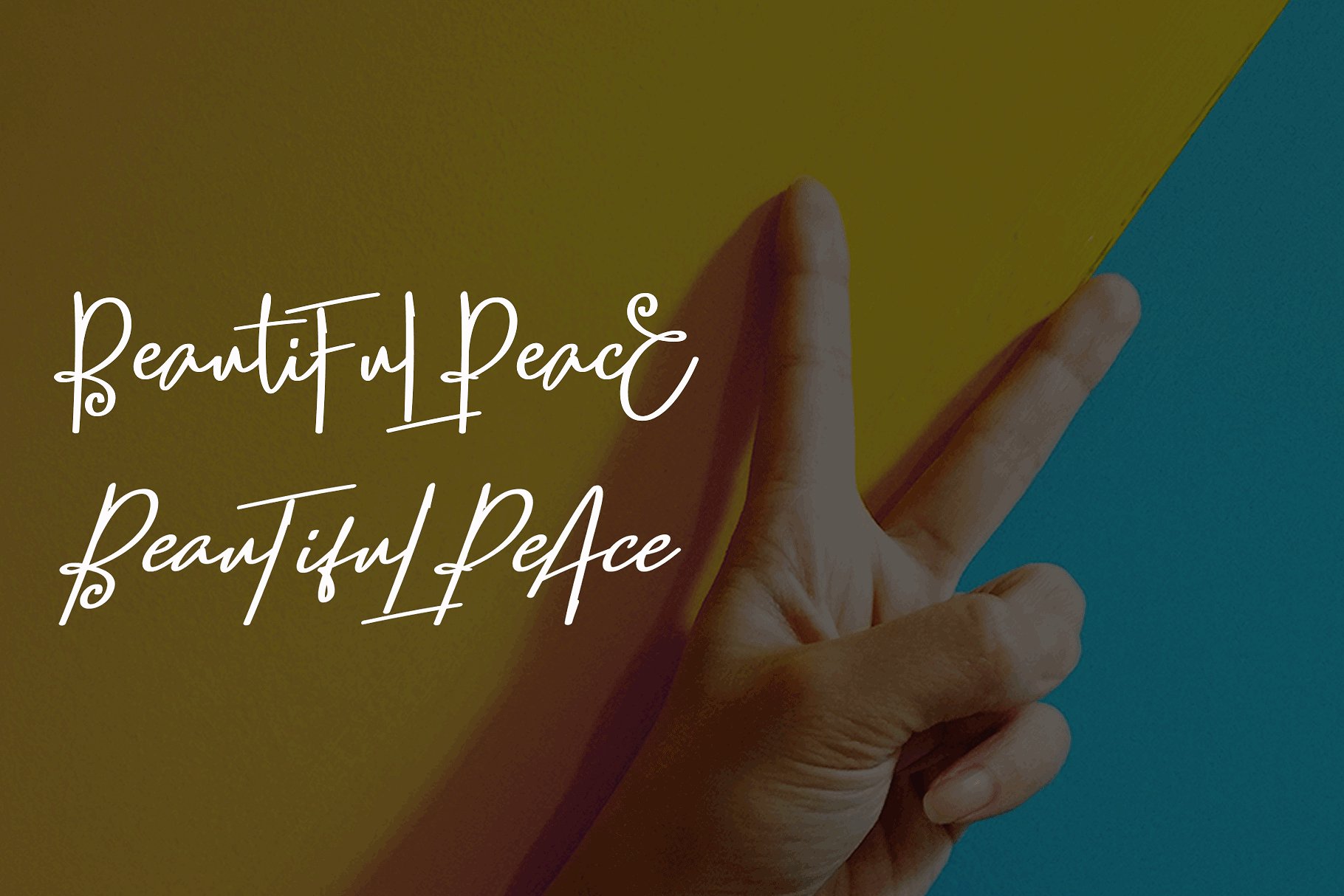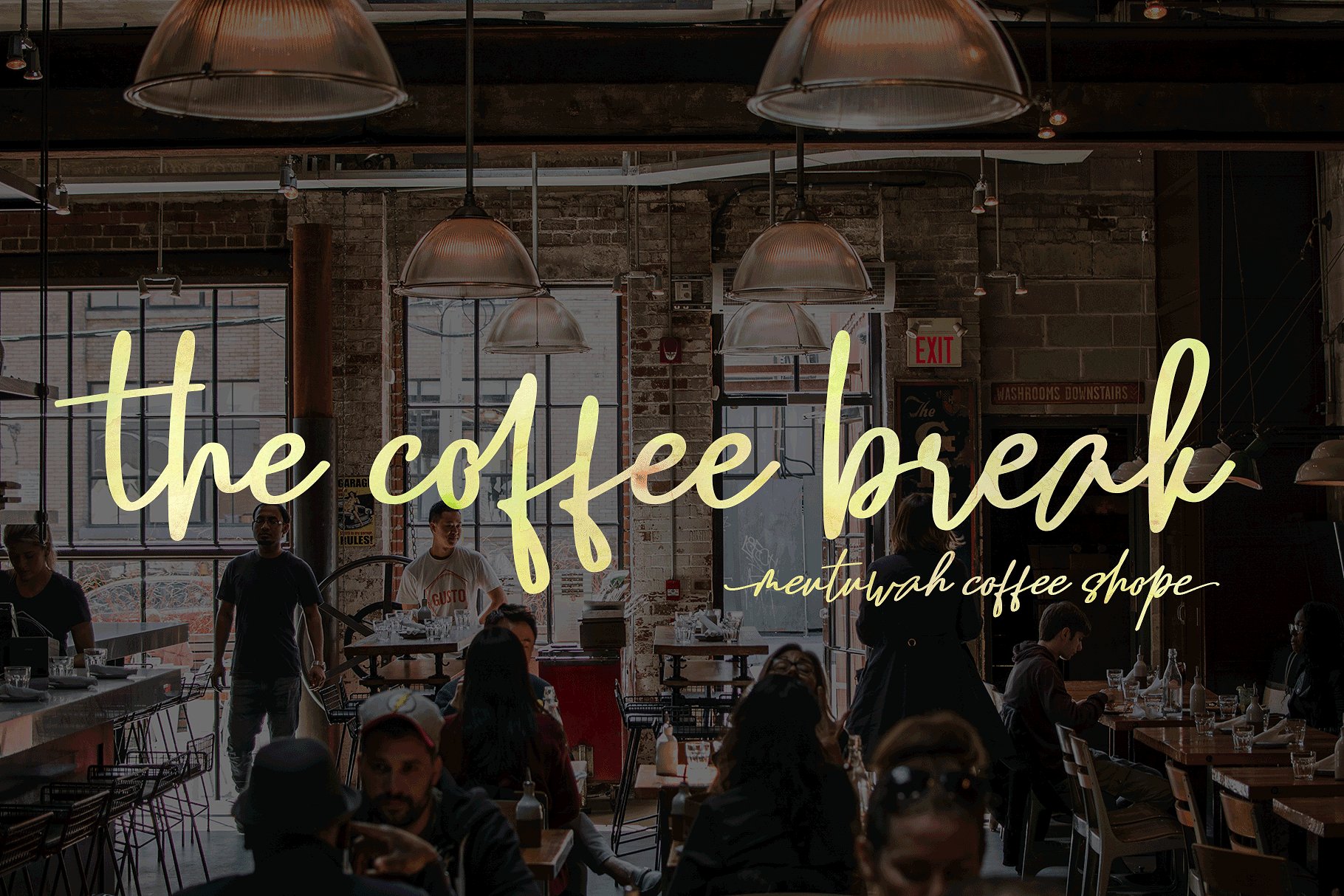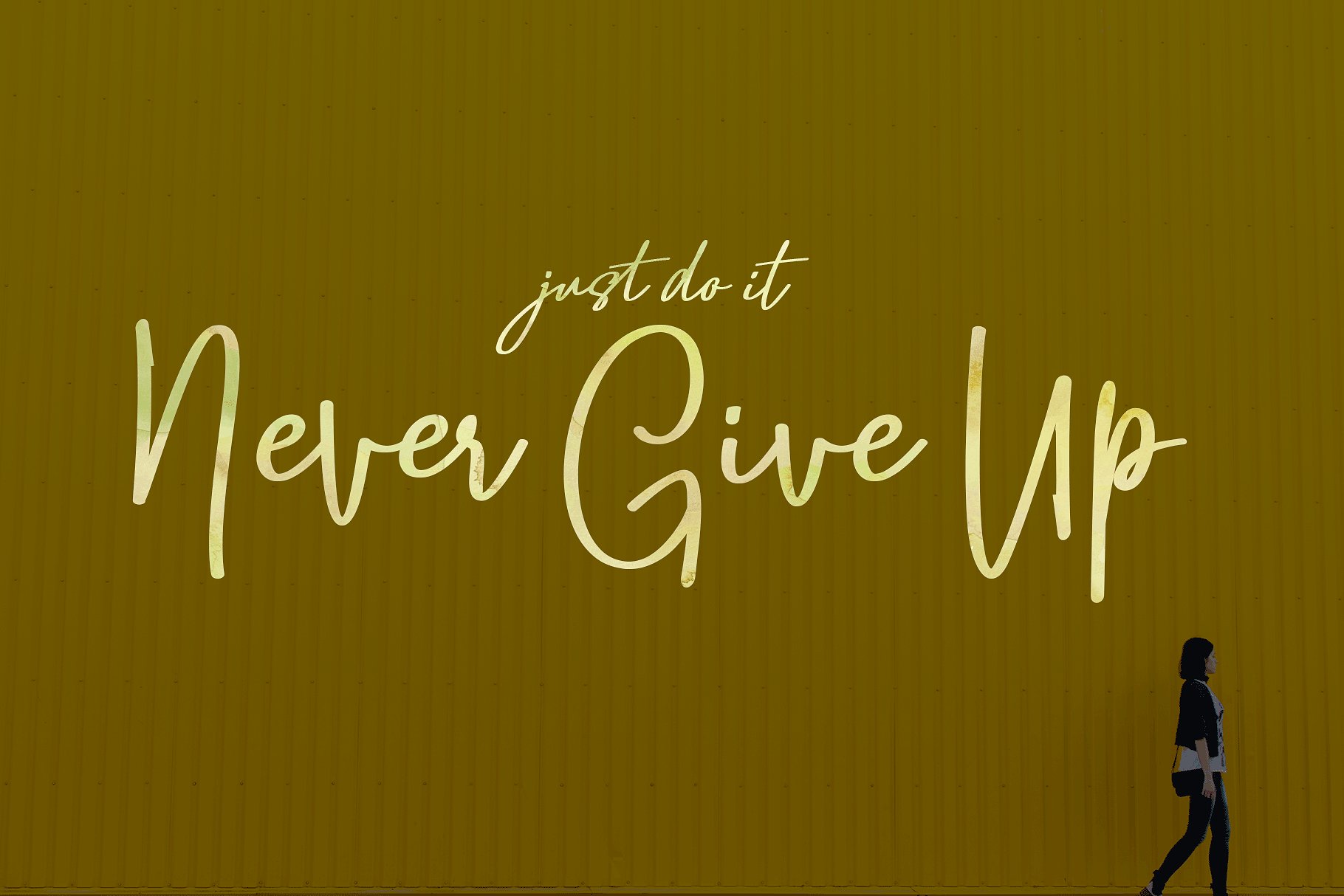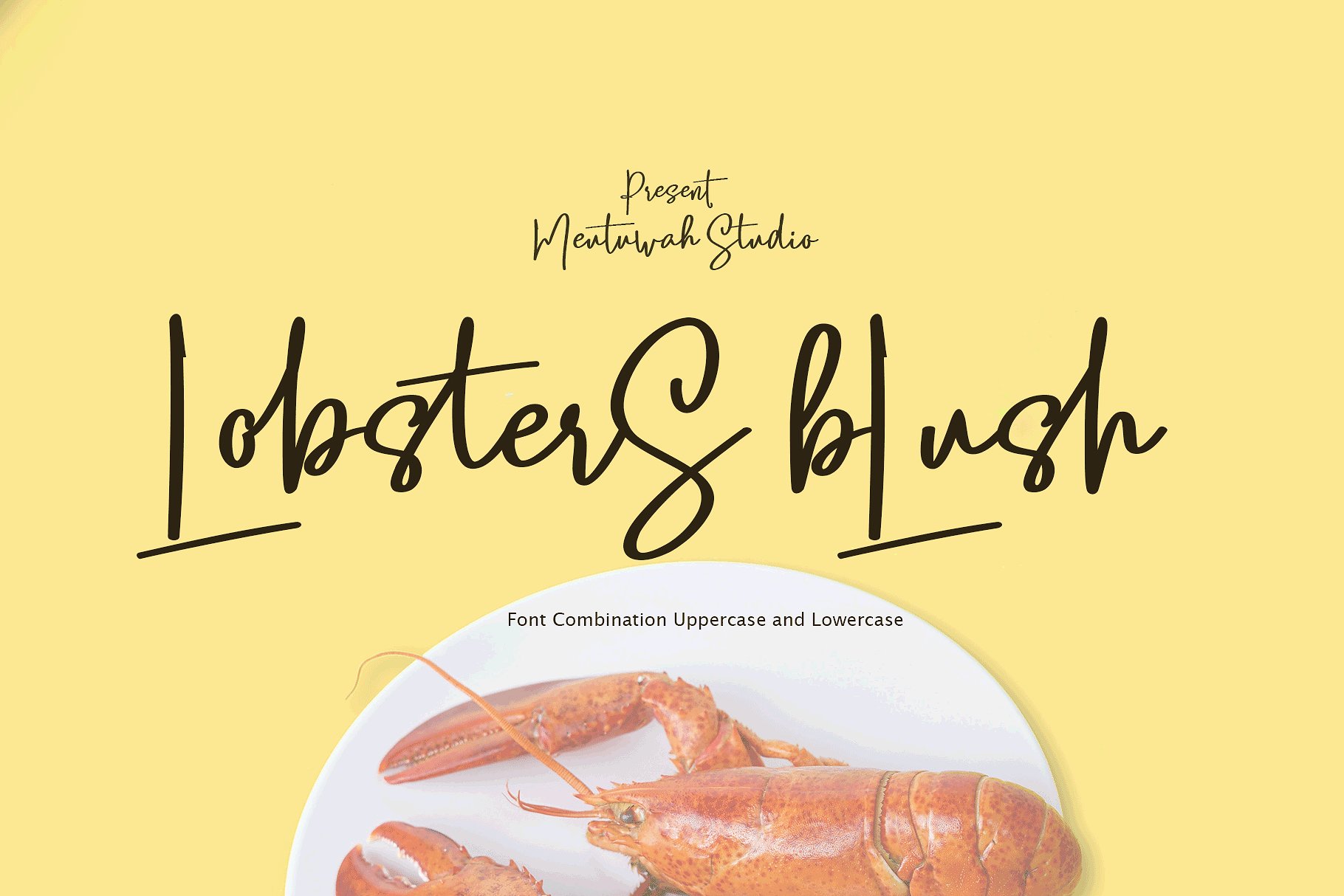
Lobsters Blush Script Font
Introducing Lobsters Blush Font. Lobsters Blush for getting that handcrafted look you’ve been looking for! Use this Lobsters Blush Font in your next project! Lobsters Blush Font Duo, is another lovely modern script, signature and Combination font, which is combining the style of classic calligraphy with an modern style. combines from copperplate to contemporary typeface with a dancing baseline, modern and elegant touch. including alternates, and ligatures.